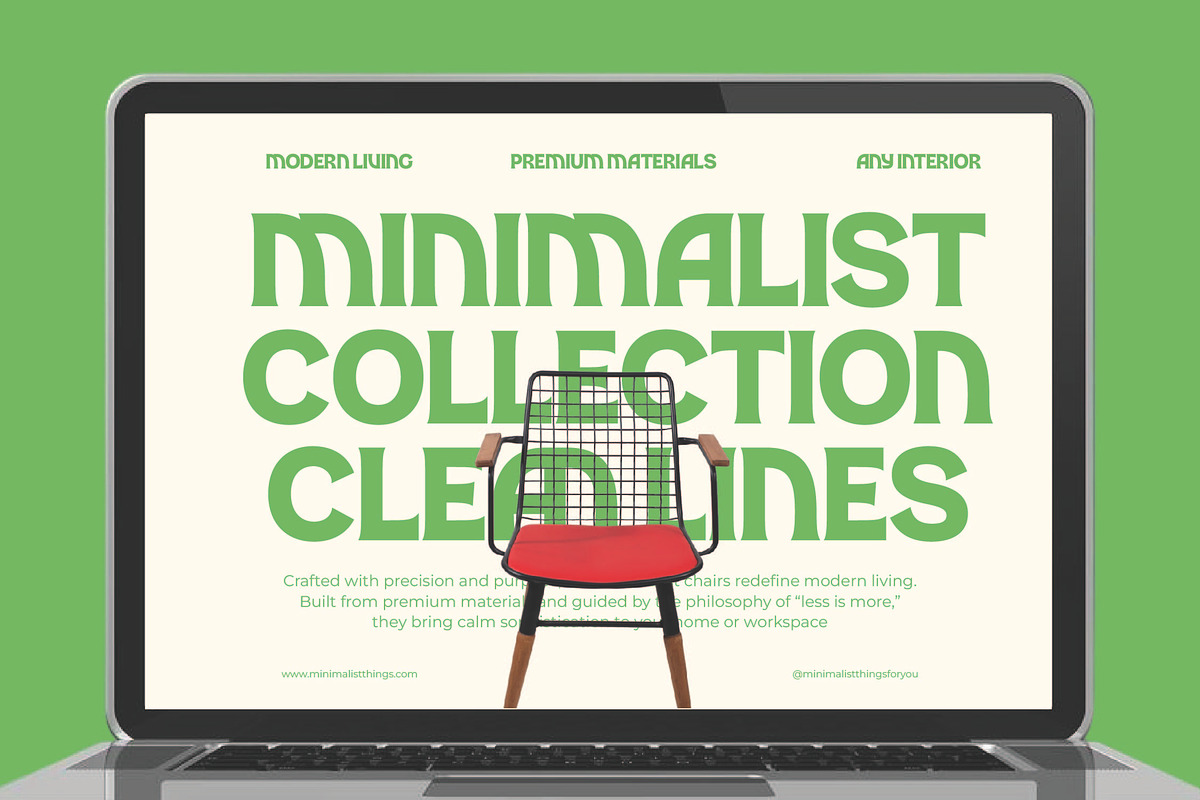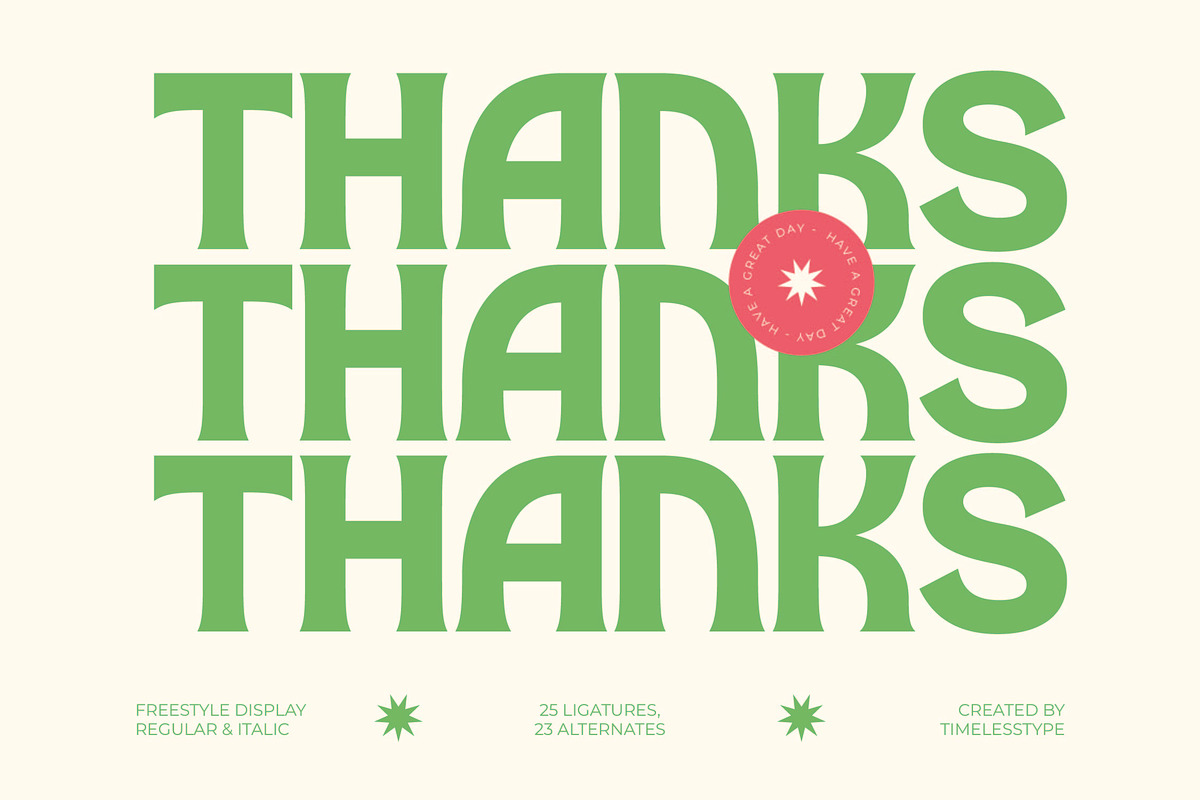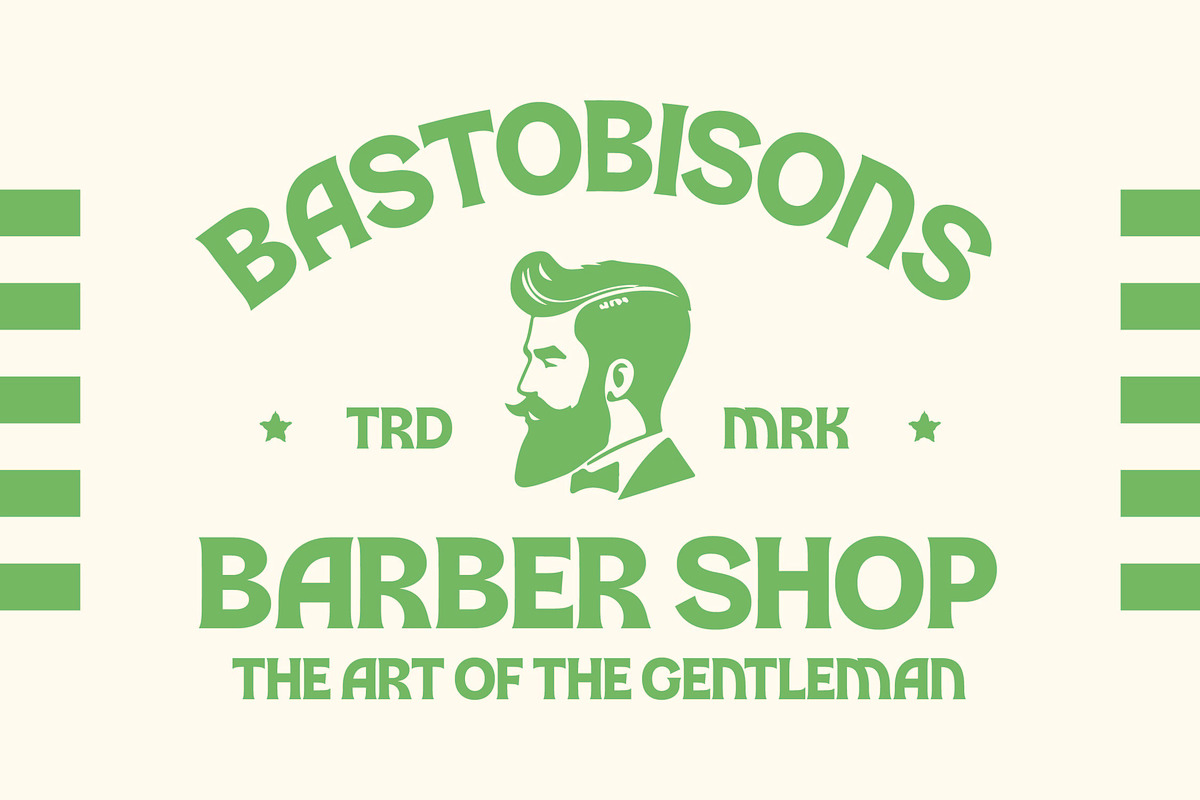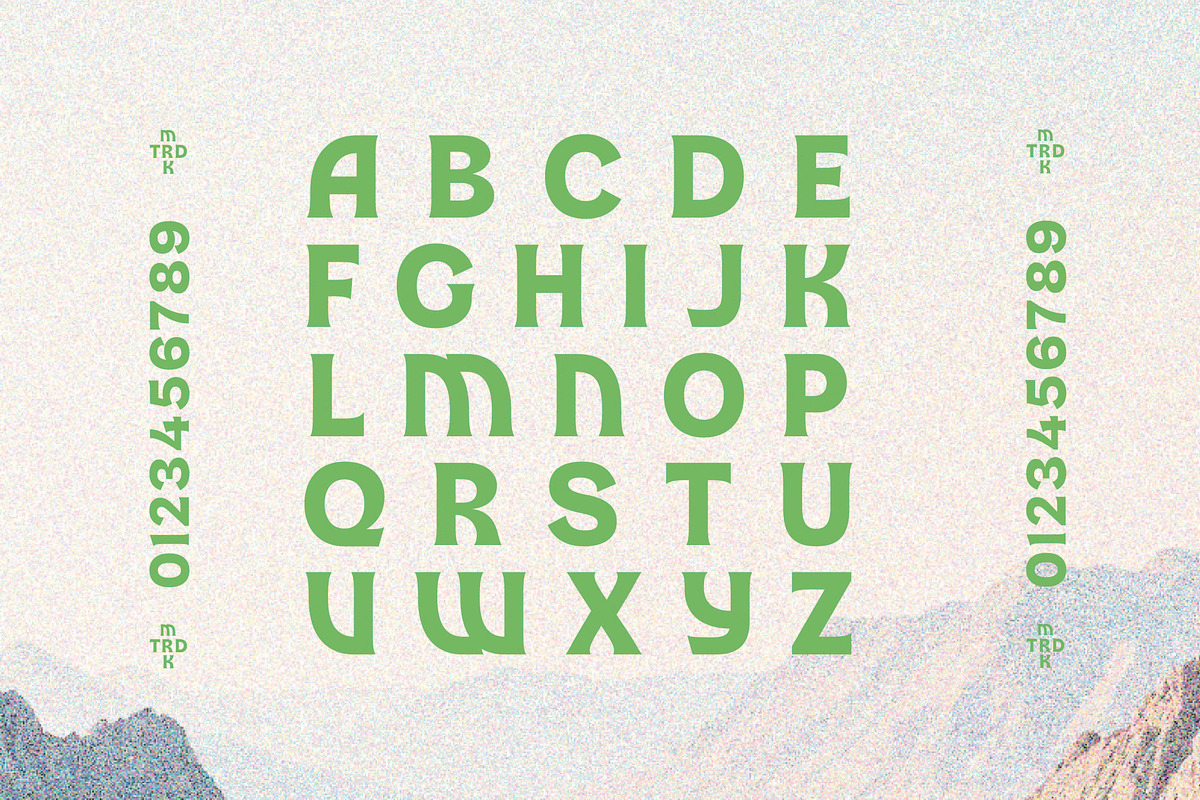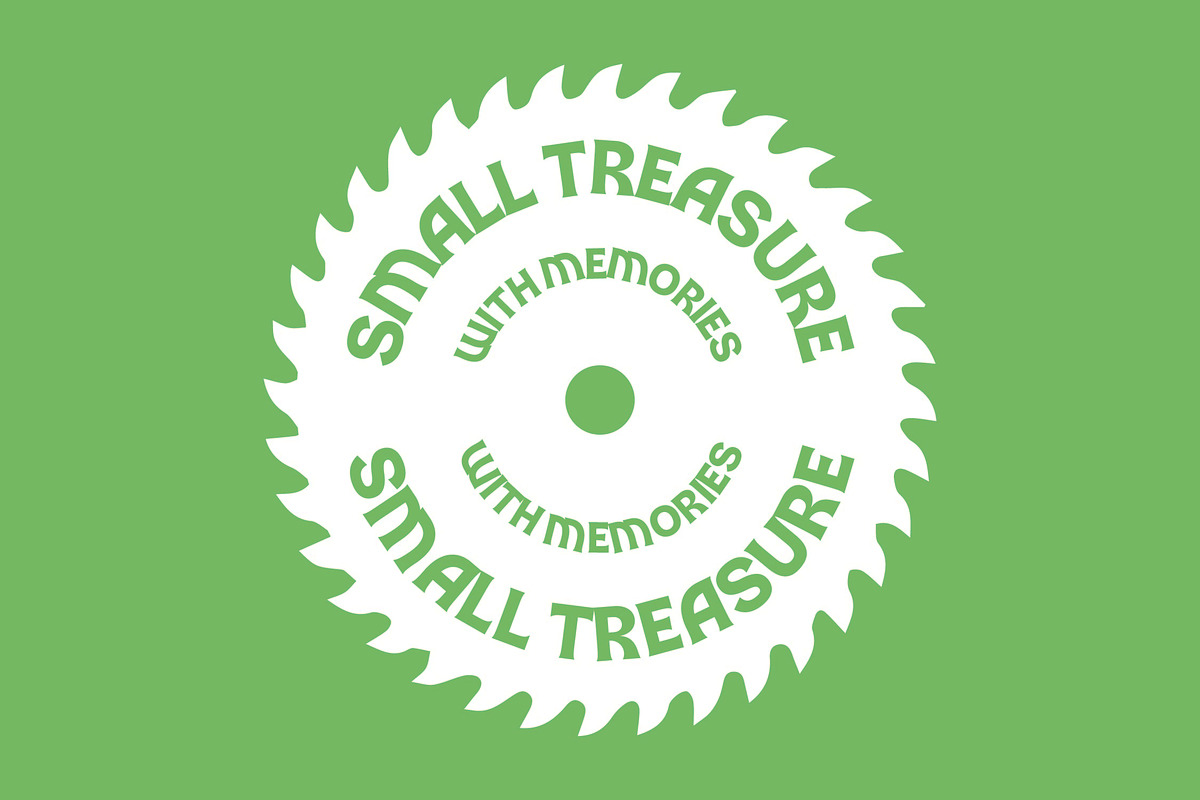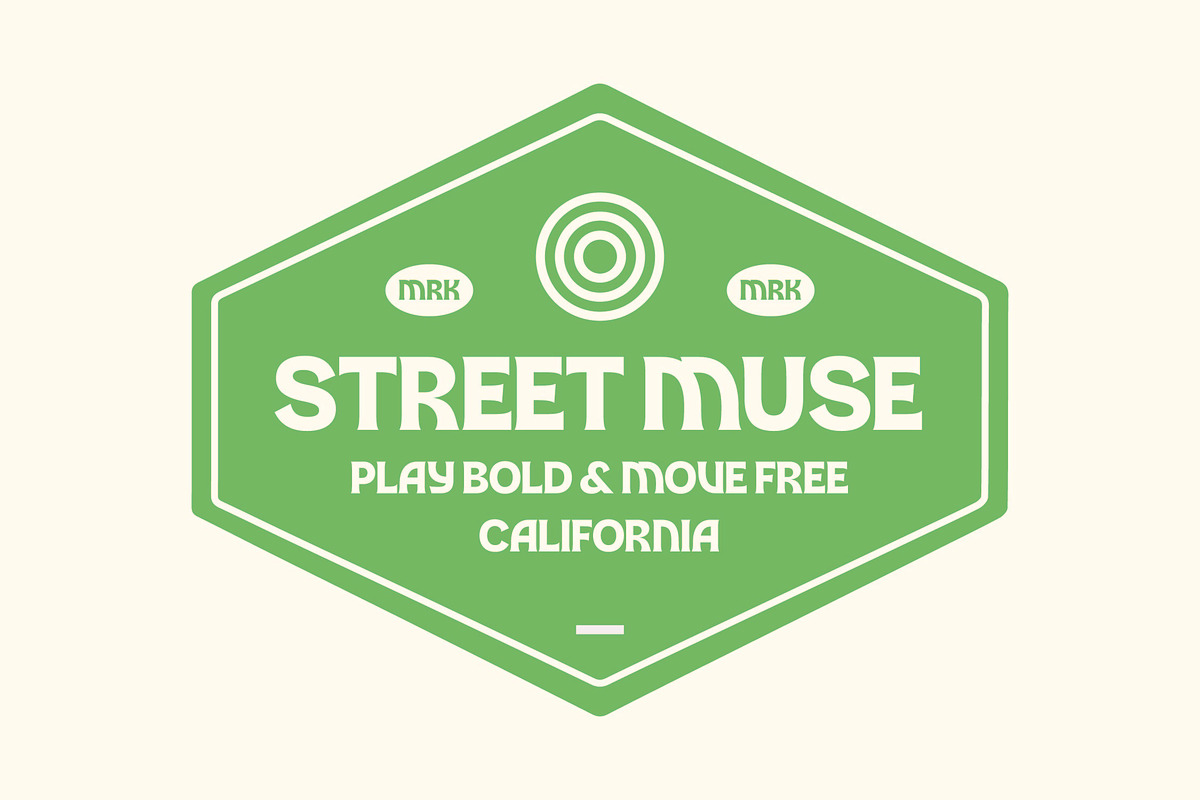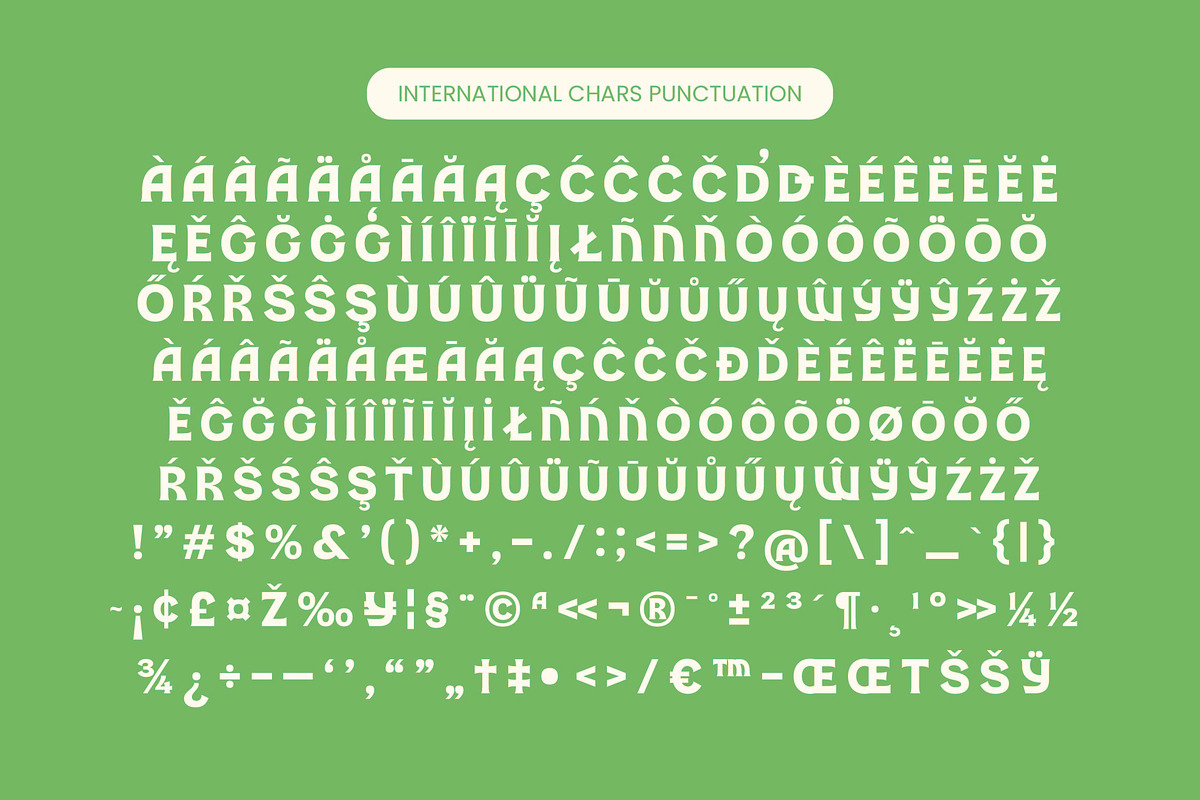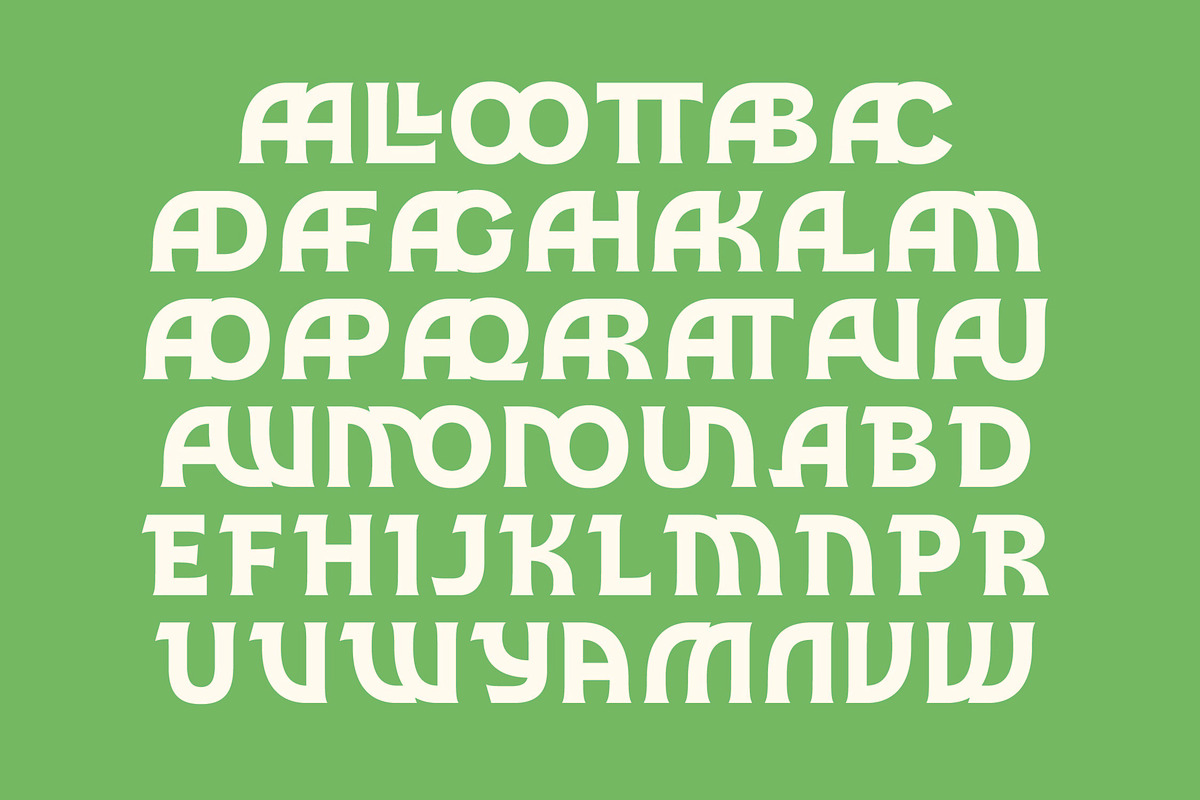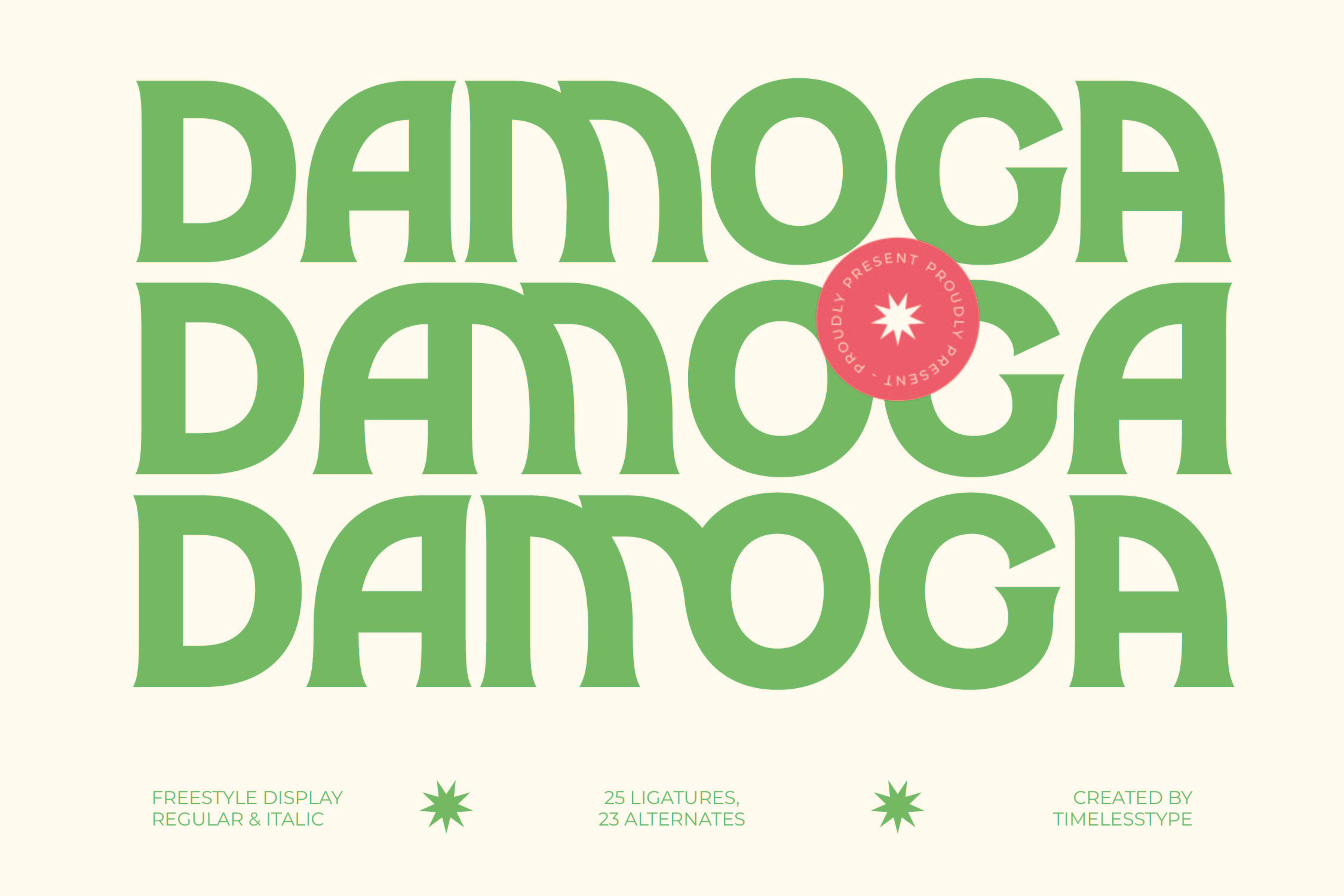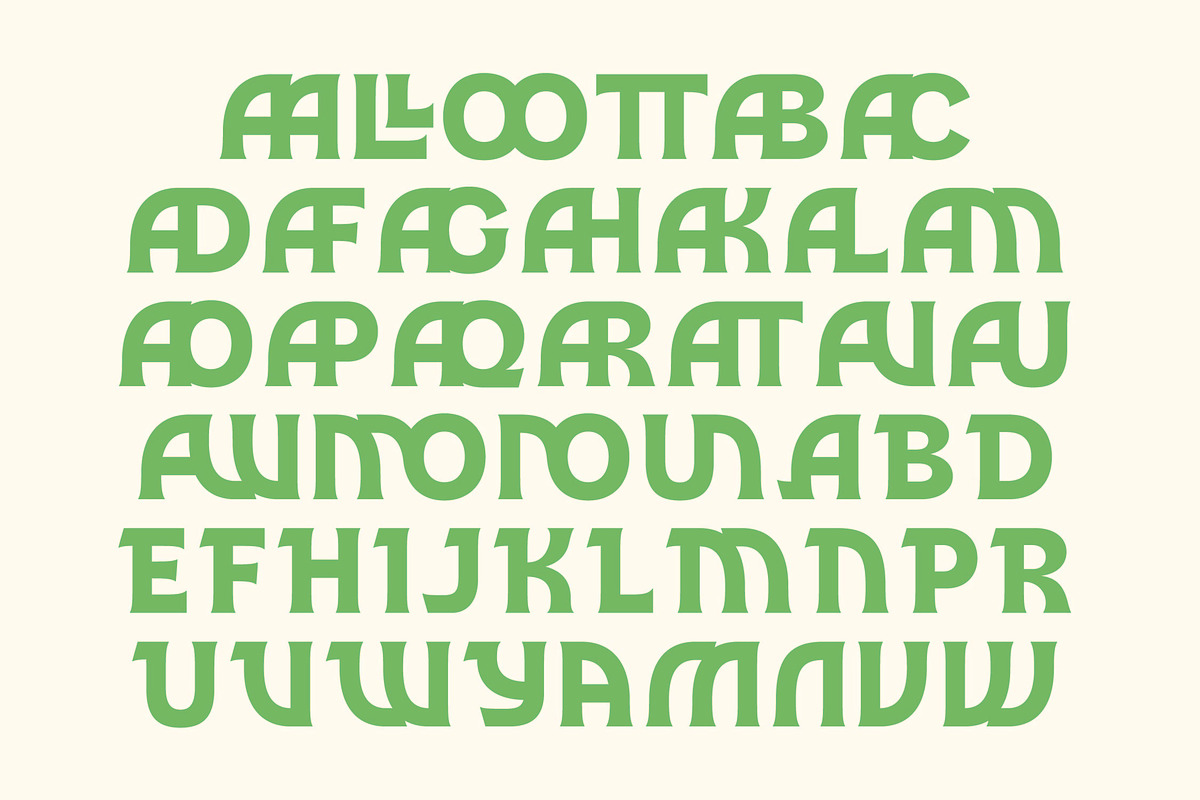
Damoga Modern Display Serif Font
Elevate your visual narrative with the captivating presence of Damoga, a font that dances between classic elegance and contemporary flair. This typeface is designed to command attention while maintaining a sophisticated, soulful rhythm in every character.
Inspired by the fluid lines of mid-century aesthetics and the organic shapes found in nature, this font evokes a sense of timeless wonder. It captures the essence of a sun-drenched afternoon in a Mediterranean garden, blending heritage with a fresh, avant-garde perspective.
As a premier modern serif display, this typeface delivers an unmatched luxury typography experience that defines high-end aesthetics. Its high-contrast serif construction and unique silhouettes make it the ultimate editorial font for projects requiring a significant branding impact.
Perfectly aligned with the current modern serif trend, this typeface answers the call for more expressive and editorial display fonts. It taps into the demand for character-driven typography that moves away from sterile minimalism toward something more tactile and memorable.
This versatile family is the perfect choice for high-impact logo design and comprehensive corporate branding suites. It shines across digital and print editorial layouts, luxury packaging, sophisticated wedding invitations, and high-street fashion lookbooks.
The package includes a comprehensive set of ligatures, alternates, and elegant swashes that allow for endless customization. With full multilingual support and a wide array of international characters, this font ensures your message is heard across the globe.
Numerals
Punctuations (OpenType Standard)
Accents (Multilingual Characters)
Ligatures and Alternative Style Stylistic Set